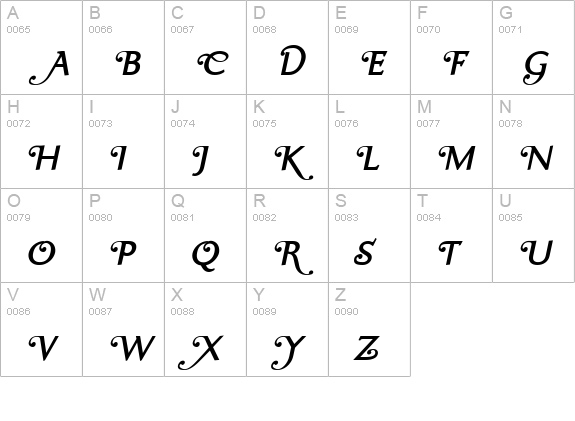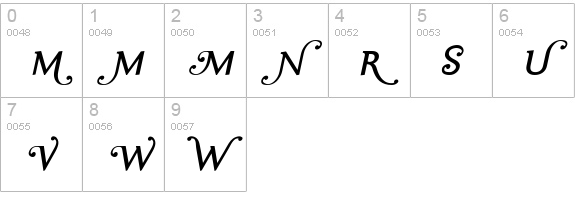
Ela Swashes SemiBold Italic PDF Font Details
Ela Swashes SemiBold Italic PDF is a sub-bold, structured, italic variant in the Ela typeface family \xE2\x80\x94 well suited to sub-headlines and emphasised passages.
Introducing Ela Swashes SemiBold Italic, a beautifully crafted font that exudes elegance and sophistication. Perfect for adding a touch of flair to your designs, this font features stylish swashes and a semi-bold weight that commands attention. The italic styling adds a touch of dynamism, making it ideal for projects that require a modern and stylish touch. Best of all, Ela Swashes SemiBold Italic is available for free download at FontsMarket.com. Simply head over to the website to access this stunning font and elevate your designs with its unique charm and versatility. Whether you're working on branding materials, invitations, or any other project that calls for a touch of sophistication, Ela Swashes SemiBold Italic is sure to impress with its striking design and effortless style. Download it today and let your creativity soar with this exceptional font.